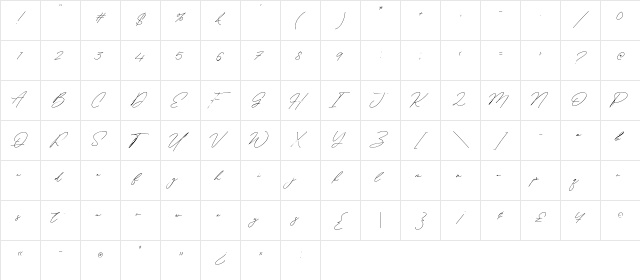
Antonio Fischer Regular
| Designer | Balpirick Studio |
Design Context for Antonio Fischer Typeface
Antonio Fischer is a composed and adaptable typeface that performs quietly and consistently across a wide range of design contexts.